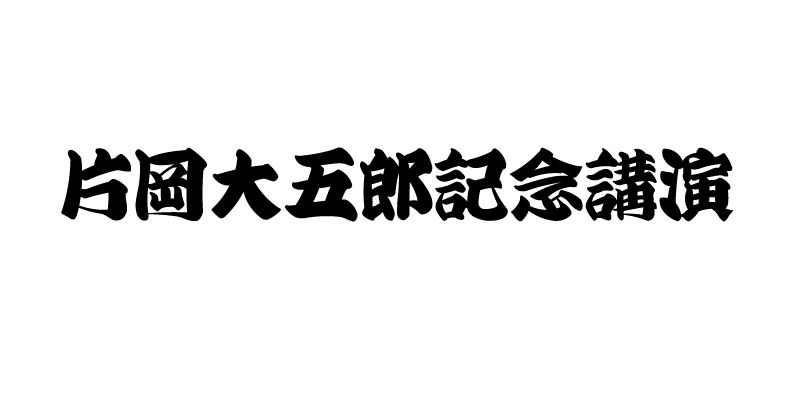
TA Engeifude Font Free Download is an expressive Japanese brush script typeface that captures the fluidity and elegance of traditional calligraphy with a modern touch. The name “Engeifude” (縁芸筆) suggests a connection to the artistry of brush strokes, making this font ideal for designs that require a handwritten, artistic, or culturally rich aesthetic. It’s perfect for use in branding, event signage, restaurant menus, wedding invitations, or any project that needs a creative, personal touch.
TA Engeifude Font Free Download features dynamic strokes with a brush-like texture, emphasizing fluidity, movement, and elegance. Its natural, slightly uneven brushwork gives the font an organic, handcrafted feel that makes each letter unique. The font includes support for Hiragana, Katakana, Kanji, and basic Latin characters, making it well-suited for bilingual designs and projects that need to convey both tradition and style.
Dynamic, artistic, and culturally rich—TA Engeifude Font brings the beauty of traditional Japanese brush calligraphy into modern design, offering a distinctive, elegant flair for any project.